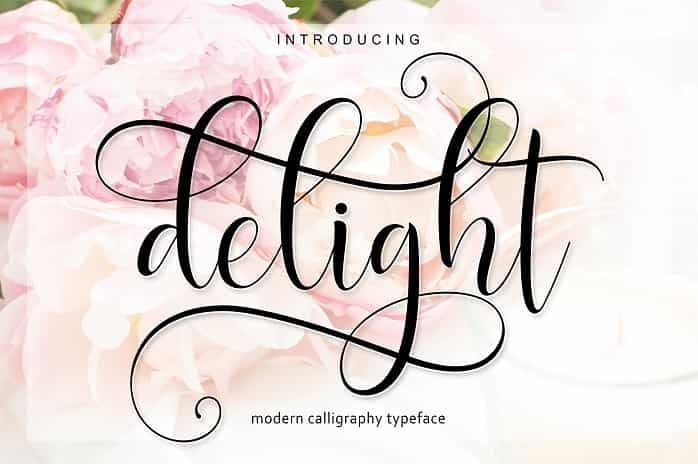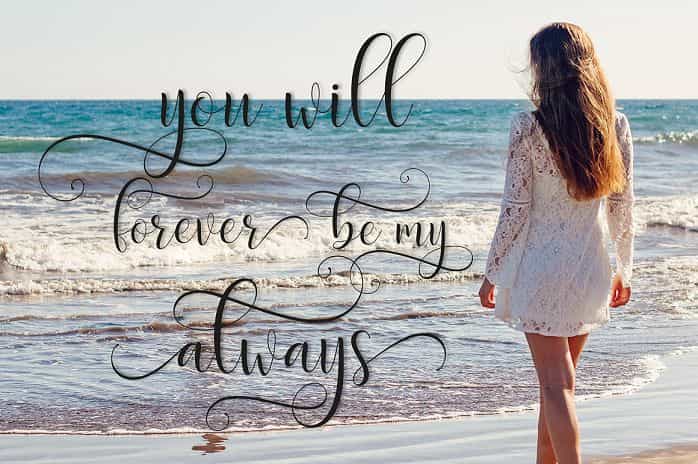
Introducing Delight Font. New modern script with a handmade calligraphy style, decorative characters and a dancing baseline are ready for you to use! Thus, so lovely on an invitation like greeting cards, branding materials, business cards, quotes, poster, and many more.